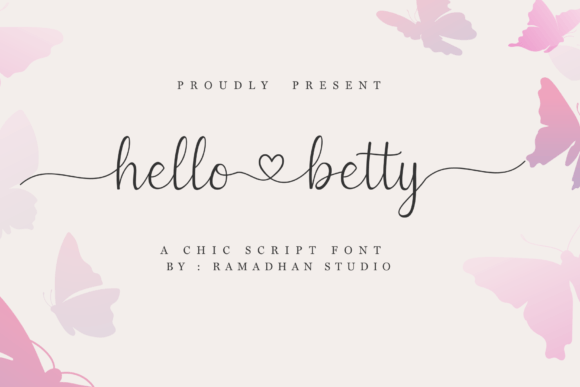
Unleash the Charm with Hello Betty Font: A Romantic Symphony for Your Creative Endeavors
Prepare to be captivated by Hello Betty, a calligraphy script font that exudes elegance and warmth. Its intricate heart-shaped swashes dance across your designs, evoking a sense of love and enchantment. With Hello Betty, your creations will blossom into captivating expressions of art, leaving an indelible mark on the hearts of your audience.
Step into a world of endless possibilities with Hello Betty, the font that speaks volumes. Whether you're crafting heartfelt invitations, designing enchanting stationary art, or seeking to captivate your audience on social media, Hello Betty will be your trusted companion, transforming your words into captivating visual masterpieces.
Let Hello Betty's romantic aura elevate your greeting cards, adding a touch of sweetness and charm that will leave a lasting impression. Its delicate curves and graceful lines will make your messages shine, conveying emotions with a depth that mere words cannot capture.
Hello Betty is not just a font; it's an experience. It's an invitation to let your creativity soar, to explore the boundless realms of your imagination, and to create designs that resonate with your soul. With Hello Betty by your side, you'll discover a newfound passion for your craft, transforming your artistic visions into tangible works of art that will leave your audience spellbound.